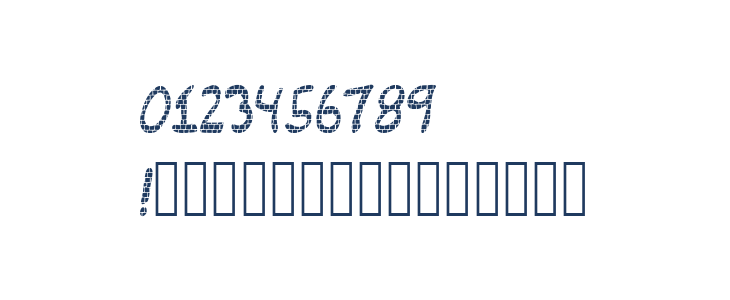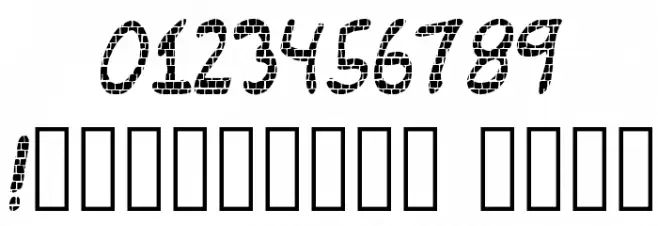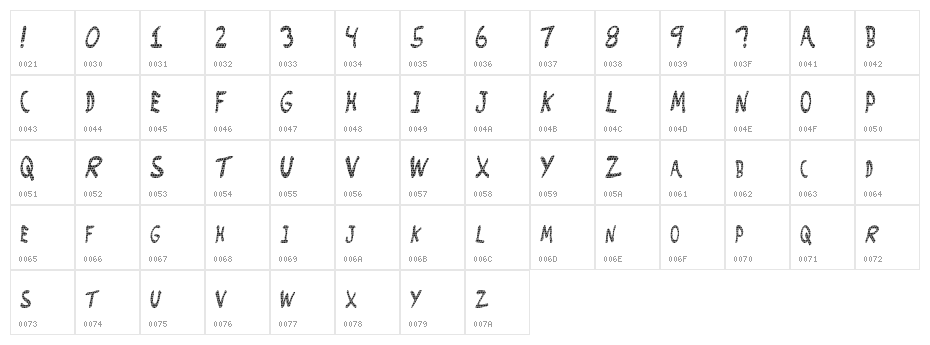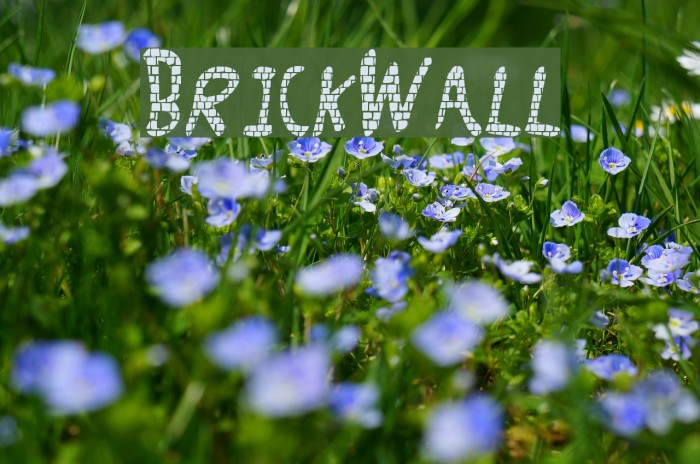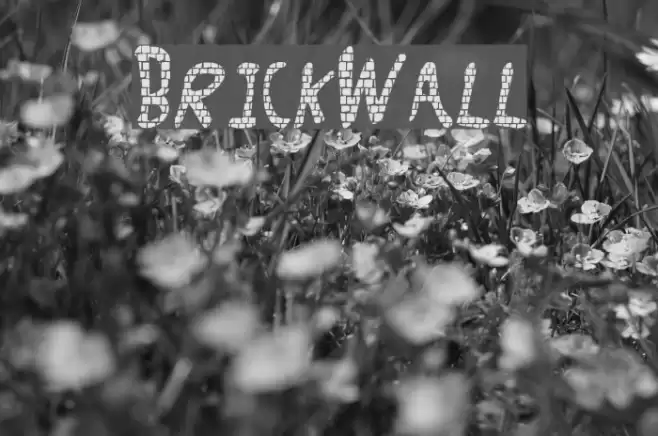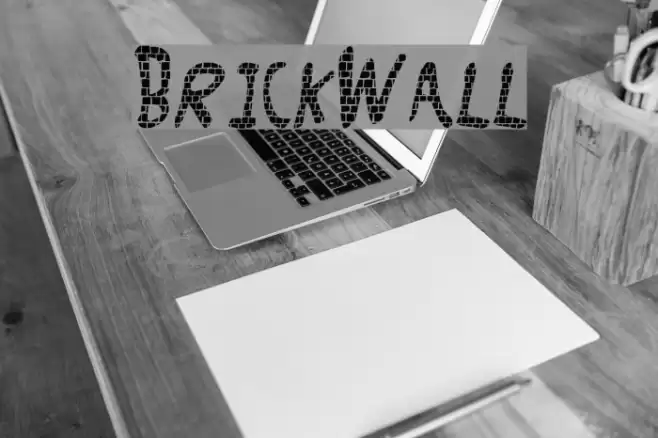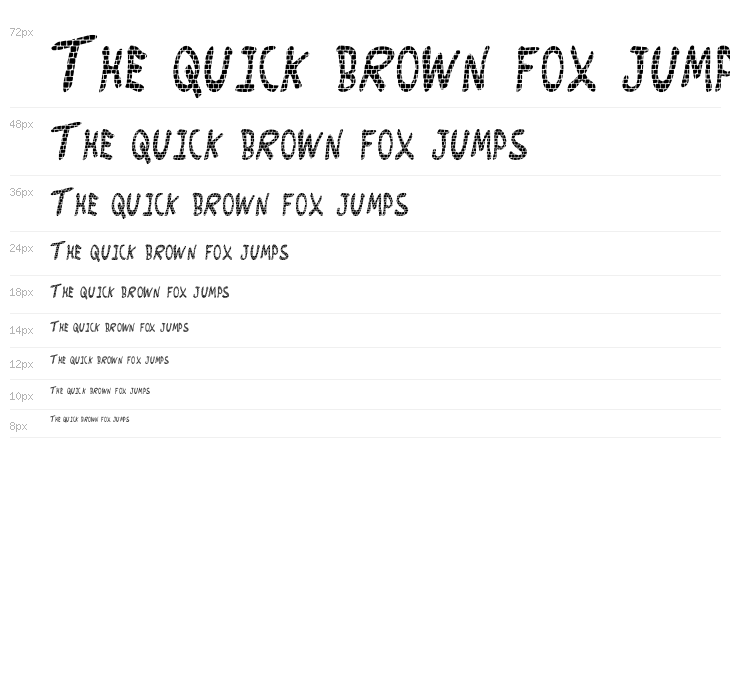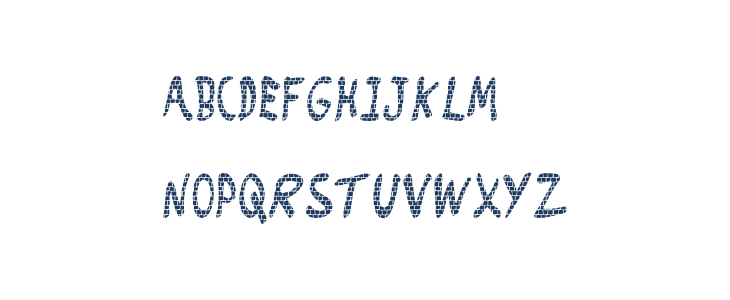
Brick_Wall Font
Brick_Wall Description
This font features a unique design that mimics the appearance of a brick wall, with each character composed of small, irregular blocks that resemble bricks. The overall look is bold and textured, giving a sense of depth and dimension. The uppercase and lowercase letters maintain a consistent style, while the numbers and special characters follow the same brick-like pattern. This font is highly decorative and stands out due to its distinctive construction, making it ideal for projects that require a strong visual impact.
| Proposed Projects | Perfect for urban-themed designs, graffiti art, posters, and any project needing a rugged, textured look. |